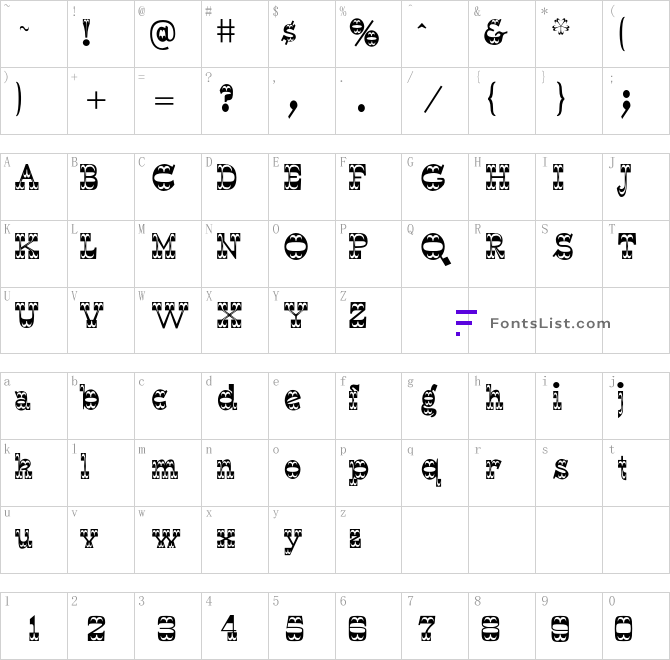
- Font Name:Dalton
Dalton.otf is a very beautiful artistic font, Dalton.otf is widely used in the design and printing of various books and pictures,Dalton.otf has a strong visual impact,Dalton.otf is a commonly used font in newspapers, magazines and books, and is used in posters, e-commerce Poster design, store design, logo design, font design and other fields.Dalton.